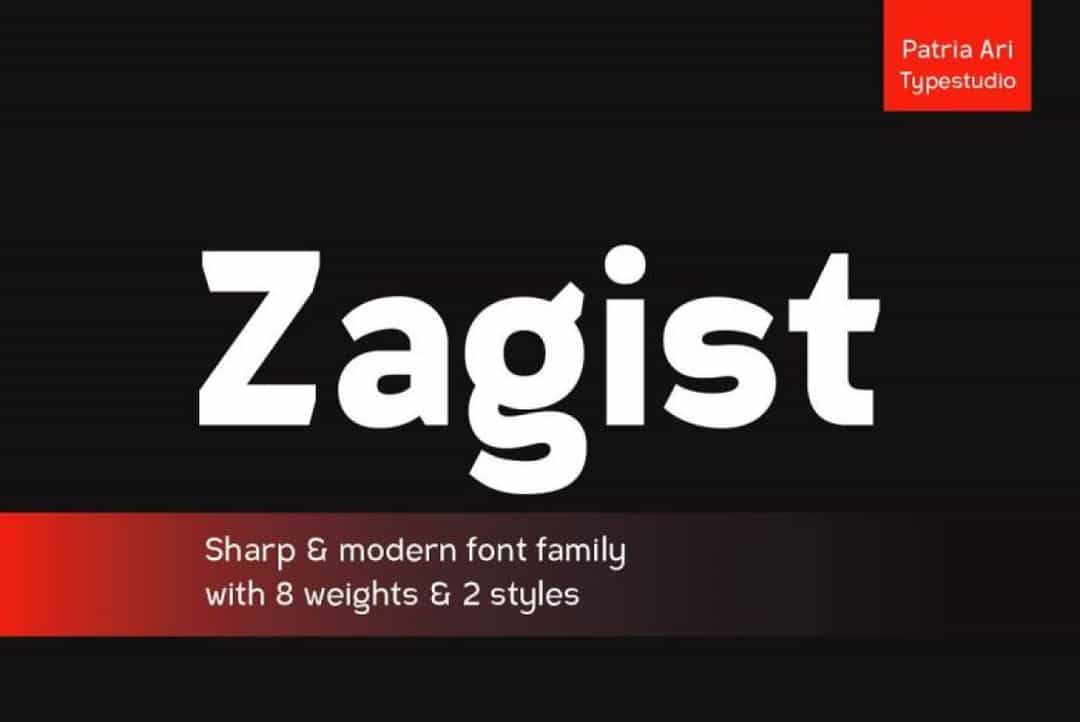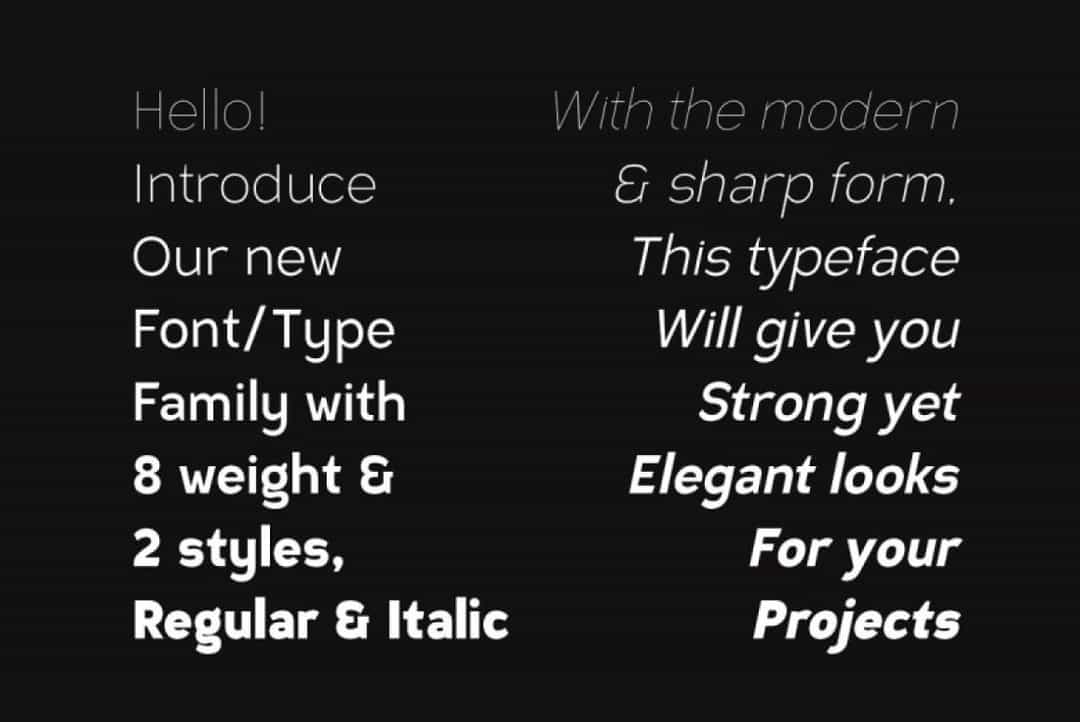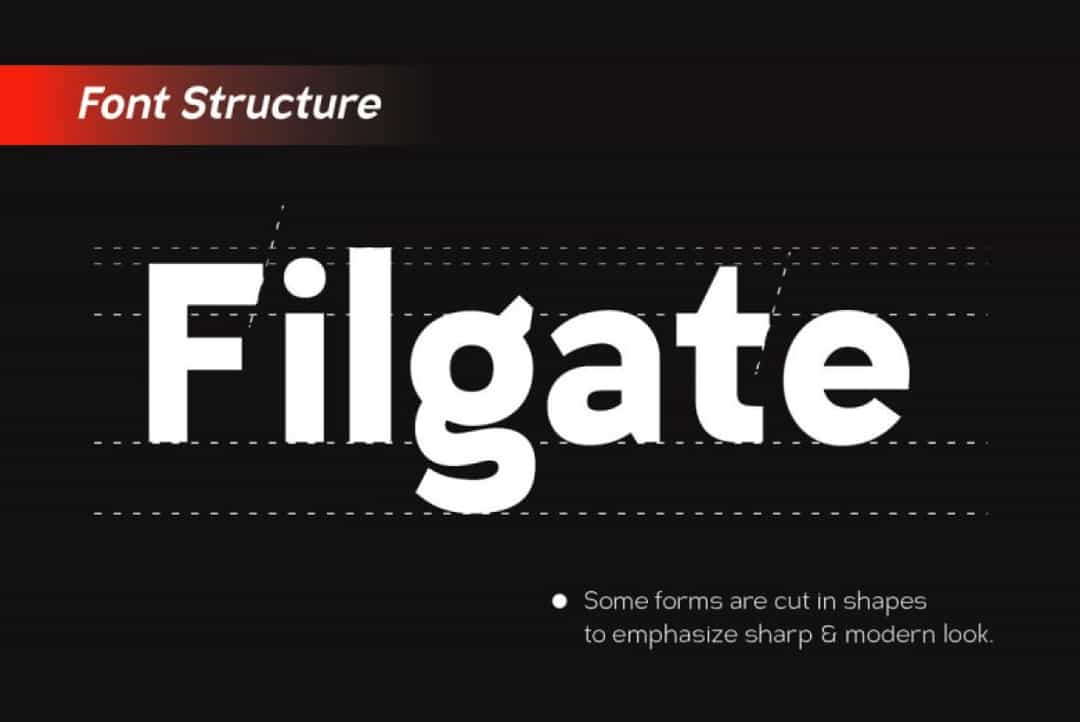
Zagist Sans Serif Font is ideal for headlines of any size as well as branding, editorial design, packaging, broadcast and web applications. It features clean and contemporary forms with sharp angles and shapes across each glyph for quick identification of every character quickly and easily.